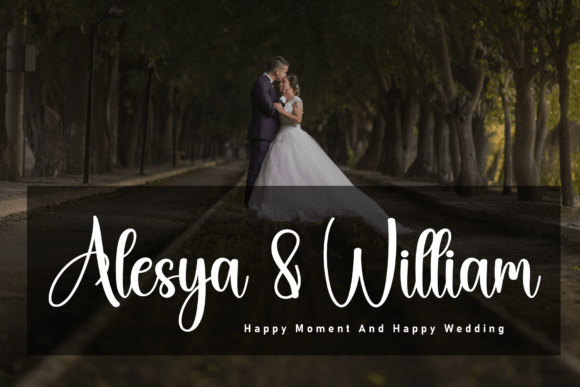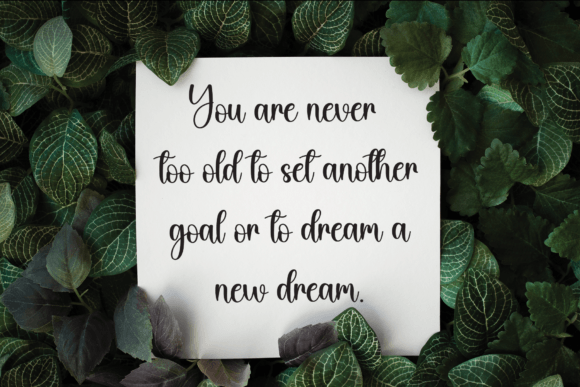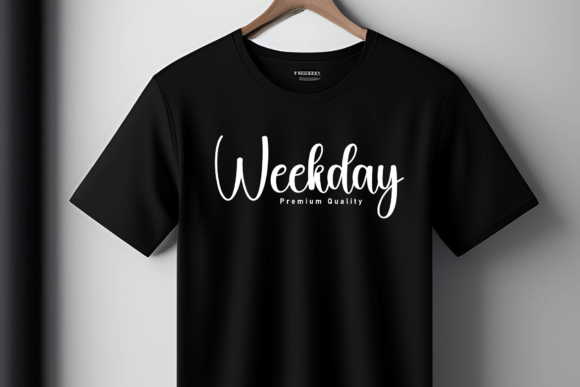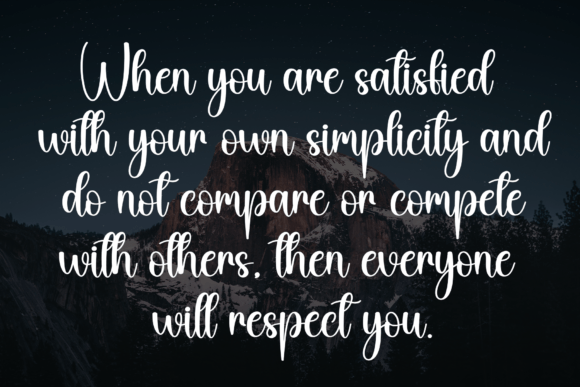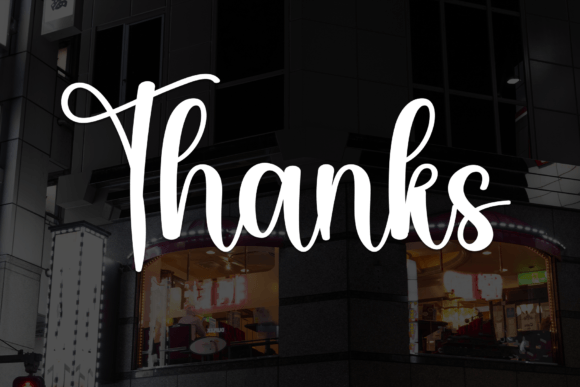
Introducing Blackstore Font: The Sweetest Handwritten Font for Your Designs
Are you tired of using the same old fonts in your designs? Do you want to add a touch of whimsy and fun to your creative projects? Look no further than Blackstore Font, a charming handwritten font that exudes sweetness and friendliness in each letter. In this article, we’ll introduce you to the delightful world of Blackstore Font and explore how it can elevate your designs to the next level.
A Font that Breathes Fun and Whimsy
Blackstore Font is a unique typeface that is perfectly charming and delightful. Its handwritten style is reminiscent of a warm, sunny day, and its letters seem to dance across the page with a joyful energy. Whether you’re designing wedding invitations, birthday cards, or social media graphics, Blackstore Font is the perfect choice to add a playful touch to your creations.
The Perfect Font for Wedding Invitations and Cards
Wedding invitations and cards are special occasions that deserve a font that’s just as special. Blackstore Font is an excellent choice for these types of designs, as it conveys a sense of love, happiness, and celebration. Its sweet and friendly tone will set the perfect mood for your wedding or event, and its unique style will make your invitations and cards stand out from the crowd.
Adding a Joyous Touch to Your Designs
Blackstore Font is more than just a font – it’s a way to infuse your designs with a sense of joy and playfulness. Its whimsical style is sure to put a smile on your face and make your designs more engaging and fun. Whether you’re a designer, crafter, or DIY enthusiast, Blackstore Font is the perfect tool to add a little extra magic to your creations.
Key Features of Blackstore Font
- Handwritten style: Blackstore Font is a beautifully crafted handwritten font that exudes warmth and personality.
- Sweet and friendly tone: This font has a sweet and friendly tone that’s perfect for wedding invitations, birthday cards, and other celebrations.
- Unique and whimsical style: Blackstore Font has a unique and whimsical style that’s sure to make your designs stand out.
How to Use Blackstore Font in Your Designs
Using Blackstore Font in your designs is easy. Here are a few tips to get you started:
- Pair it with other fonts: Blackstore Font looks great paired with other fonts, such as serif or sans-serif fonts.
- Use it for headings and titles: This font is perfect for headings and titles, as it’s attention-grabbing and fun.
- Add some color: Blackstore Font looks great with bright, bold colors that match the playful tone of the font.
Why Designers and Crafters Love Blackstore Font
Designers and crafters love Blackstore Font for its unique style and versatility. Here are a few reasons why:
- It’s fun and playful: Blackstore Font adds a fun and playful touch to any design.
- It’s versatile: Blackstore Font can be used for a wide range of designs, from wedding invitations to social media graphics.
In conclusion, Blackstore Font is a charming handwritten font that’s perfect for designers and crafters who want to add a touch of whimsy and fun to their creations. Its sweet and friendly tone, unique style, and ease of use make it a must-have font for any designer or crafter. So why wait? Download Blackstore Font today and start adding a joyous touch to your designs!